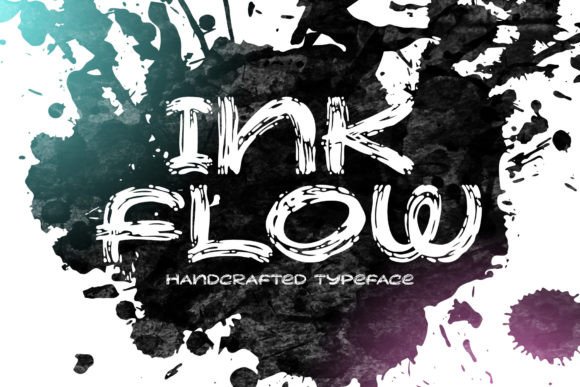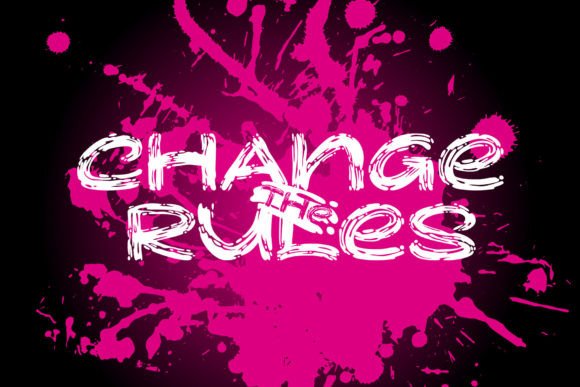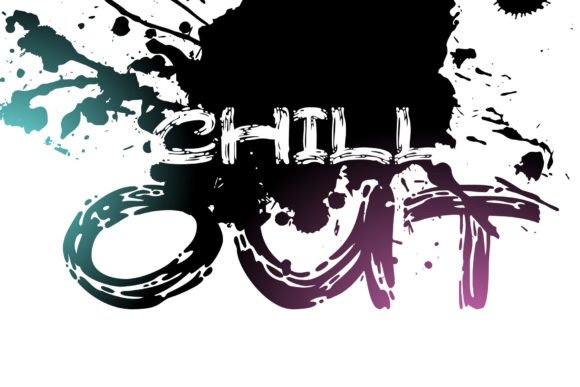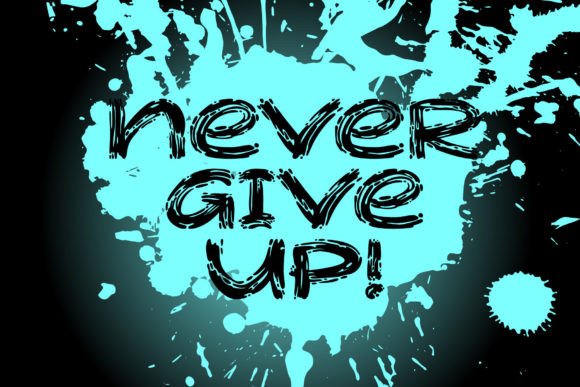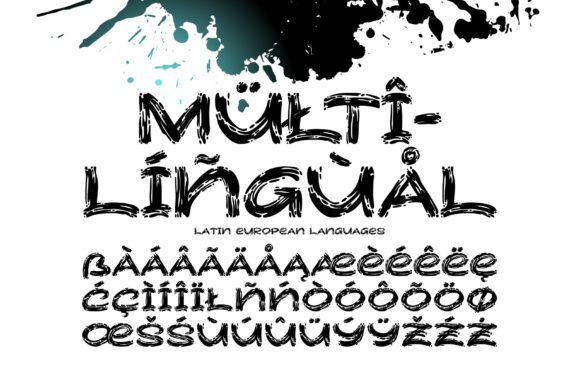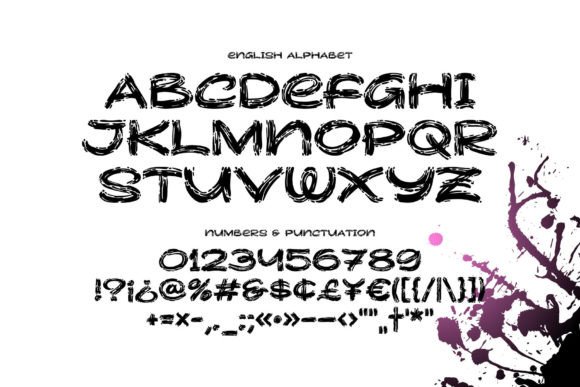
Ink Flow Font
Ink Flow Font Download – Handcrafted All-Caps Brush Script
The Ink Flow Font download is a bold and handcrafted all-caps typeface that combines artistic brush strokes with modern style. Designed to bring energy and uniqueness into your projects, this font is perfect for bold headlines, logos, posters, and packaging. Its rough yet stylish texture makes it a versatile addition to any designer’s toolkit.
A Bold and Handcrafted Brush Style
The Ink Flow Font download captures the essence of authentic brush lettering. With its uneven edges and textured appearance, it adds a natural and handcrafted touch to your designs. Each letter has been designed with personality, ensuring your text looks both striking and memorable.
Perfect for Posters and Logos
Strong visual design starts with typography, and the Ink Flow Font download is ideal for poster headlines, branding, and logos. Its bold style makes it stand out, while its handcrafted character adds a sense of authenticity. Whether for creative agencies, lifestyle brands, or event promotions, this font communicates strength and originality.
Great for Packaging and Labels
The Ink Flow Font download adapts beautifully to product packaging and label designs. Its textured brush style gives packaging a handmade, artistic quality that stands out on shelves. From coffee bags to fashion tags, this font adds visual impact.
Readability with a Creative Edge
While brush fonts often sacrifice readability for style, the Ink Flow Font download strikes the perfect balance. Its bold strokes are dramatic yet legible, making it suitable for both large titles and medium-sized text. This ensures your designs look creative without losing clarity.
Why Choose Ink Flow Font?
Among brush fonts, the Ink FlowFont download stands out thanks to its handcrafted all-caps design, textured strokes, and bold personality. It is versatile enough to be used in digital graphics, print materials, and product branding. Designers seeking a unique yet professional brush script will find Ink Flow to be a valuable addition.
Add Handcrafted Energy to Your Projects
Typography sets the tone of your work, and the Ink FlowFont download helps you add boldness, artistry, and handcrafted flair. Whether for posters, packaging, or logos, this font ensures your designs leave a strong and lasting impression.